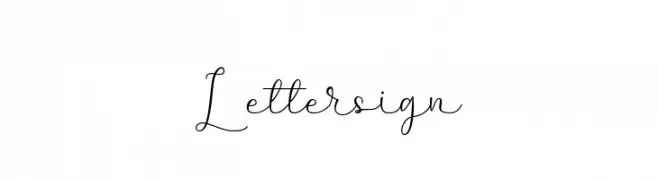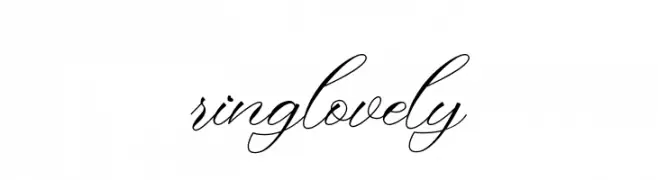
A delicate, flowing script font with elegant loops and curves.
A playful handwritten font with a casual and friendly style.
An elegant script font with fluid, cursive strokes and graceful curves.
A playful, handwritten script font with smooth, flowing characters.
An elegant script font with fluid, cursive strokes and sophisticated style.
An elegant, flowing script font with a handwritten style.
An elegant script font with flowing, interconnected letters and ornate uppercase characters.
An elegant script font with fluid, continuous strokes and a sophisticated style.
A delicate, elegant handwritten font with flowing lines and whimsical charm.
An elegant script font with flowing, interconnected letters and ornate flourishes.